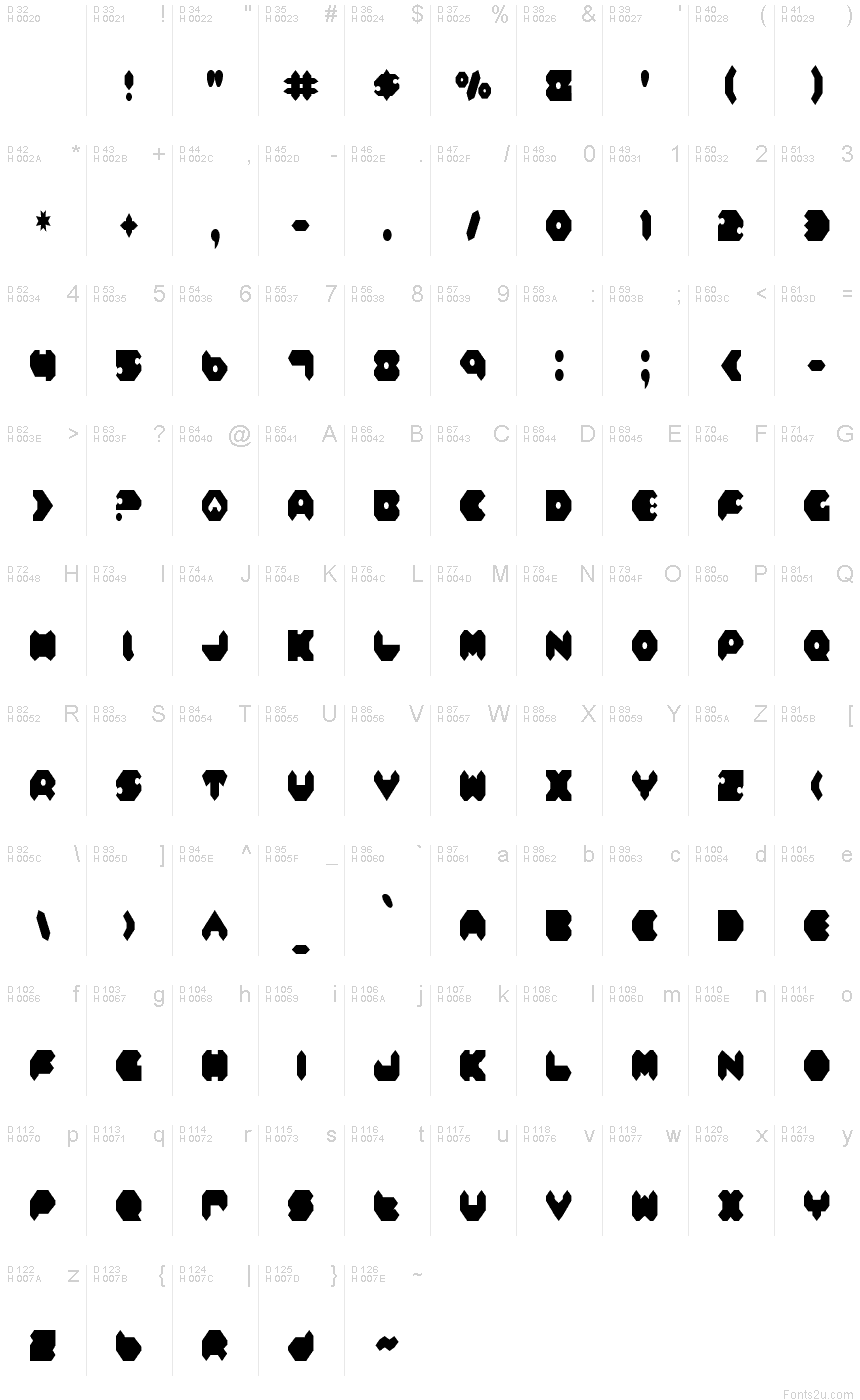
Feldercarb Condensed
Feldercarb Condensed font by Iconian Fonts is a free techno display font. Its letterforms lock together like sharp-edged plates of armor, with tight spacing and angled cuts that feel straight out of a neon-soaked control panel. The condensed width keeps words compact and punchy, so even short titles look dense, heavy, and unmistakably futuristic.
Using Feldercarb Condensed, you can push sci‑fi posters, game titles, esports branding, club flyers, and tech event graphics into full-on cyber territory. This free font shines in huge, all-caps headlines where its geometric rhythm can really hit. Pair it with a clean, neutral sans serif at smaller sizes to keep layouts readable while Feldercarb Condensed delivers the bold, mechanical attitude up front.